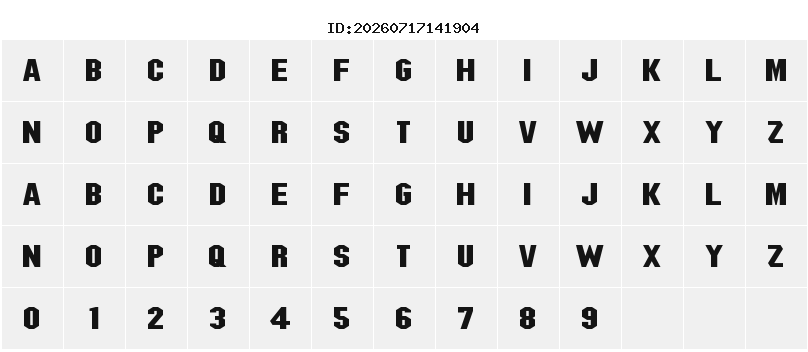
• Font Name: Blitzwing Extended
• Full Font Name: Blitzwing Extended
• Version: Version 1.00 - July 8, 2013
• Designer: Neale Davidson
About Blitzwing Extended.ttf
Blitzwing Extended.ttf is a modern, elegant sans-serif font designed for ultimate readability and visual harmony. Perfect for branding, headlines, web design, and print materials.